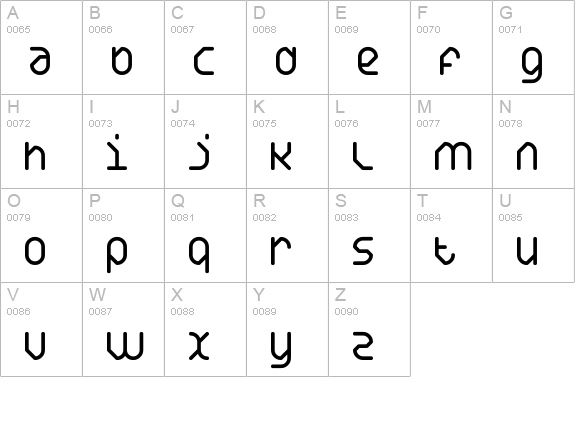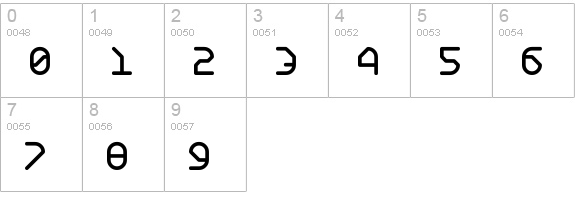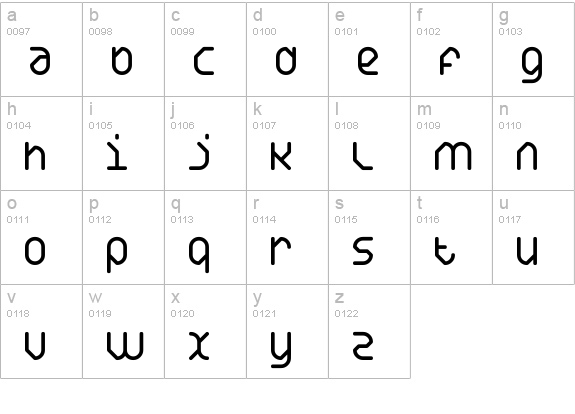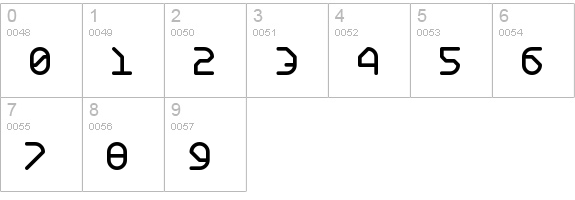
DS Yakuti55R Font Details
The DS Yakuti55R font is a modern and sleek typeface that exudes sophistication and elegance. With its clean lines and bold lettering, this font is perfect for a wide range of design projects, from branding to editorial design. The DS Yakuti55R font is available for free download at FontsMarket.com, making it easily accessible for designers and creatives looking to add a touch of class to their work. Whether you're designing a logo, creating a poster, or working on a website, the DS Yakuti55R font is sure to make a statement and elevate your design to the next level. Get your hands on this stunning font today and see the difference it can make in your projects!